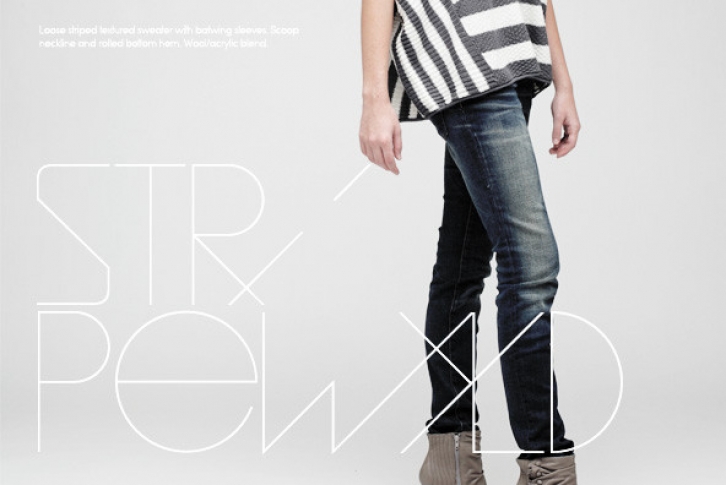
Wyld is the alternative version of Myld from the subtype family. As a very light alternative sans-serif, it has strong presence whilst remaining incredibly minimal. Wyld is fully developed and has a full character set supporting all european languages.